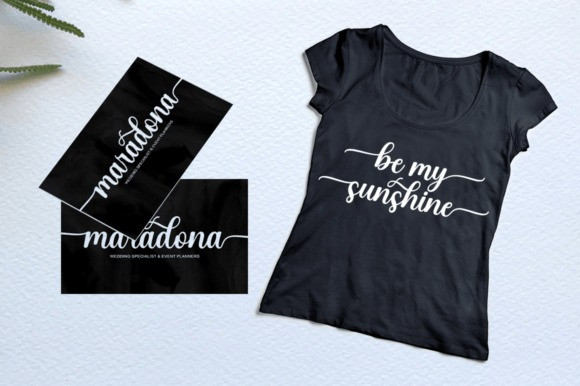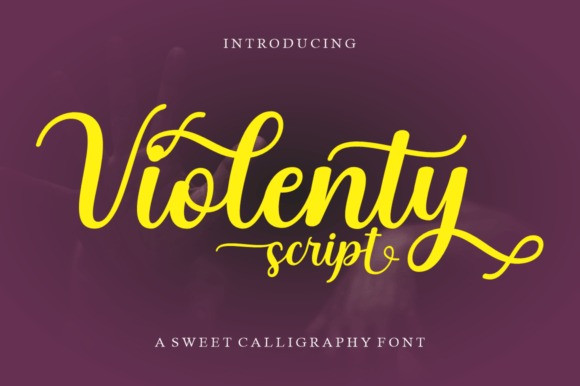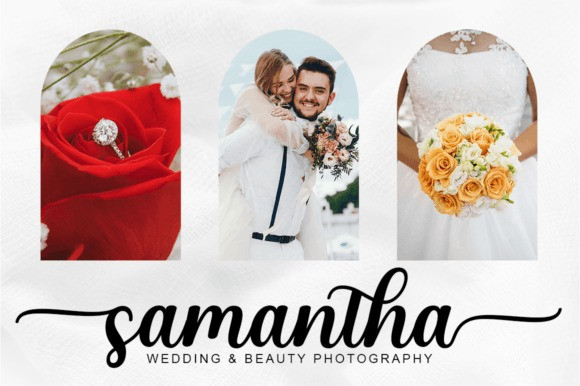
Violenty Font
Violenty Font is an enchanting handwritten font. This versatile script font has a wide spectrum of applications ranging from greeting cards to weeding invitations, and is guaranteed to add a romantic feel to your next project.